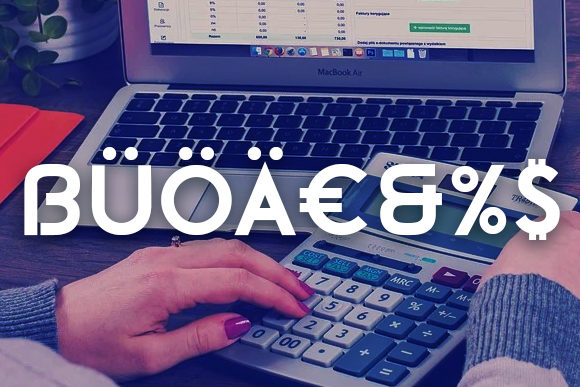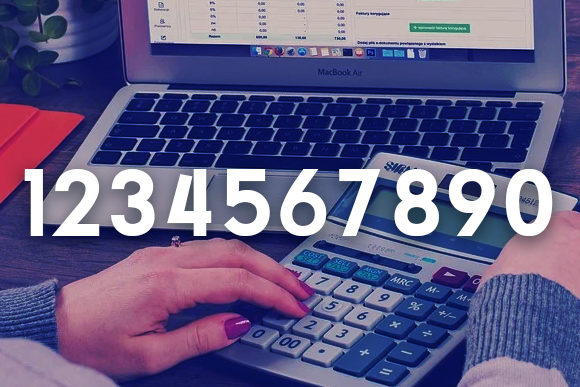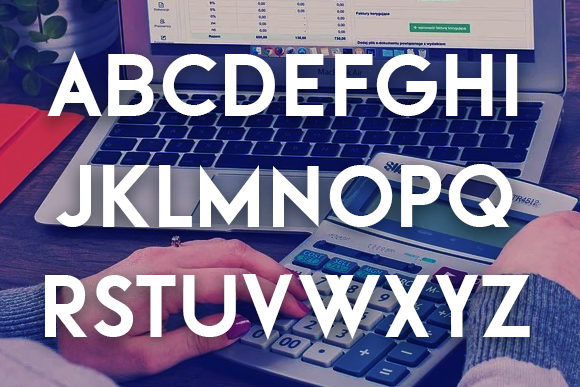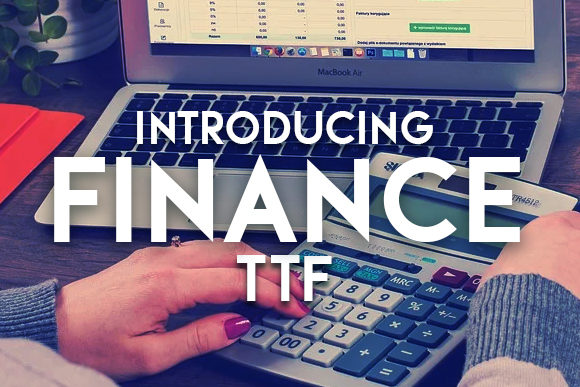
Introducing Finance Font: Elevate Your Designs with a Stylish Sans Serif Typeface
When it comes to creating visually stunning designs, the right font can make all the difference. For designers and crafters looking to add a touch of sophistication and modernity to their projects, Finance Font is an excellent choice. This stylish sans serif typeface is designed to inspire and elevate your works, making it perfect for a wide range of applications.
What is Finance Font?
Finance Font is a sleek and contemporary sans serif font that boasts clean lines, elegant curves, and a versatile aesthetic. Its modern design ensures that it stays ahead of the curve, making it an ideal choice for designers who want to create fresh and impactful designs. Whether you’re working on a branding project, a website, or a craft, Finance Font is sure to impress.
Key Features of Finance Font
- Stylish Sans Serif Design: Finance Font features a stylish sans serif design that exudes modernity and sophistication.
- Clean Lines and Elegant Curves: The font’s clean lines and elegant curves make it perfect for creating visually stunning designs.
- Versatile Aesthetic: Finance Font’s versatile aesthetic makes it suitable for a wide range of applications, from branding and advertising to web design and crafting.
- Easy to Read: The font’s clear and legible design ensures that it’s easy to read, making it perfect for body text and headings.
Why Choose Finance Font?
There are many reasons why Finance Font stands out from the crowd. Here are just a few:
- Unique and Modern Design: Finance Font’s unique and modern design ensures that your designs stand out from the crowd.
- Highly Versatile: The font’s versatility makes it suitable for a wide range of applications, from print to digital.
- Professional and Sophisticated: The font’s professional and sophisticated aesthetic makes it perfect for creating high-end designs.
How to Use Finance Font in Your Designs
Using Finance Font in your designs is easy. Here are a few tips to get you started:
- Pair it with Other Fonts: Finance Font works well when paired with other fonts, creating a unique and visually appealing combination.
- Experiment with Different Sizes: The font’s clear and legible design makes it suitable for use at a range of sizes, from small body text to large headings.
- Use it for Headings and Titles: Finance Font’s stylish and modern design makes it perfect for use in headings and titles.
Finance Font is a stylish sans serif typeface that’s perfect for designers and crafters looking to elevate their designs. Its modern design, clean lines, and elegant curves make it a versatile and sophisticated choice for a wide range of applications. Whether you’re working on a branding project, a website, or a craft, Finance Font is sure to inspire and impress.